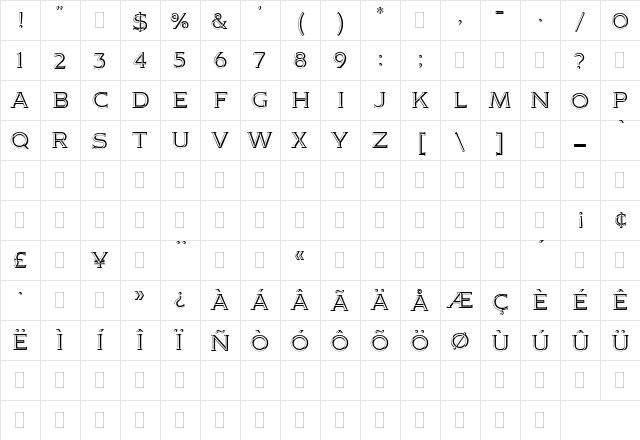
CitationLETPlain1 Regular Font Preview
CitationLETPlain1 Regular
Design Context for CitationLETPlain1 Typeface
CitationLETPlain1 takes a measured approach to typography — its balanced proportions and neutral character make it a reliable workhorse for both digital and print work.
Pro Tip: Use CitationLETPlain1 in both headline and body roles to test its range before committing to a single application.